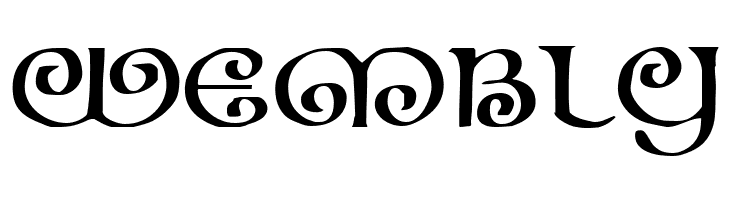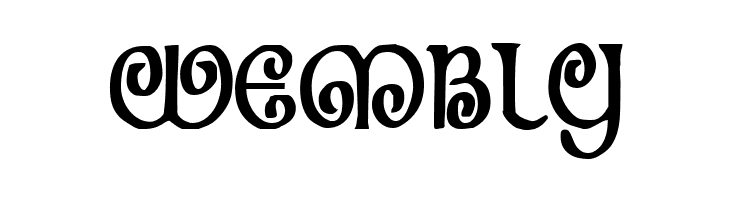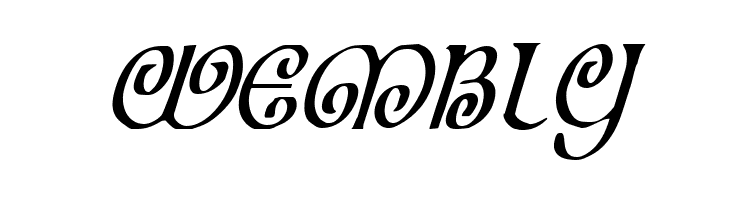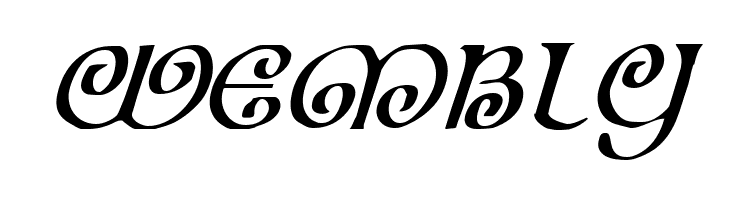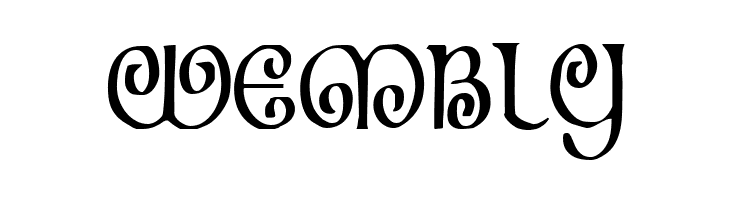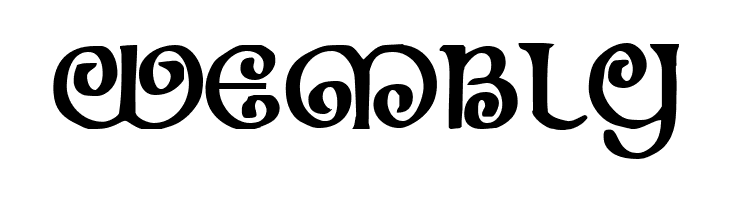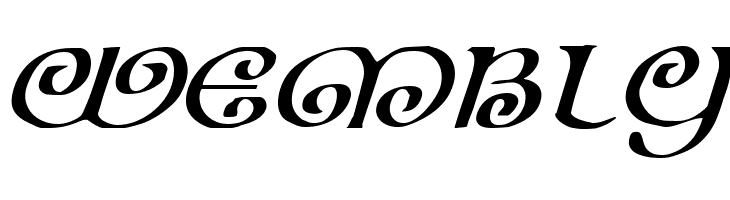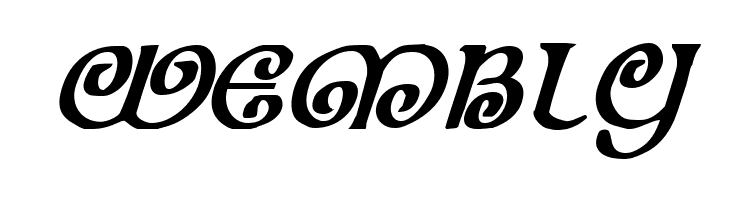
Sunrise Font
- Font: Sunrise
A whimsical and decorative font with intricate swirls and curls.
A bold, condensed, and decorative font with whimsical curls and loops.
A whimsical, decorative font with condensed italicized letters and playful curves.
A whimsical, decorative italic font with intricate swirls and curls.
A whimsical, decorative font with intricate curls and loops, ideal for fantasy themes.
A bold, decorative font with whimsical curves and fantasy-like flourishes.
A whimsical, decorative font with playful curves and swirls.
A bold, italic, and decorative font with whimsical, fantasy-inspired letterforms.